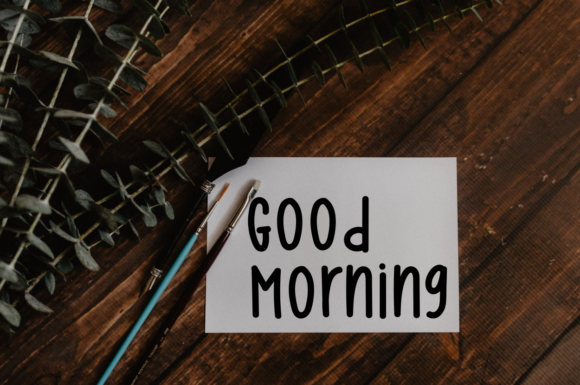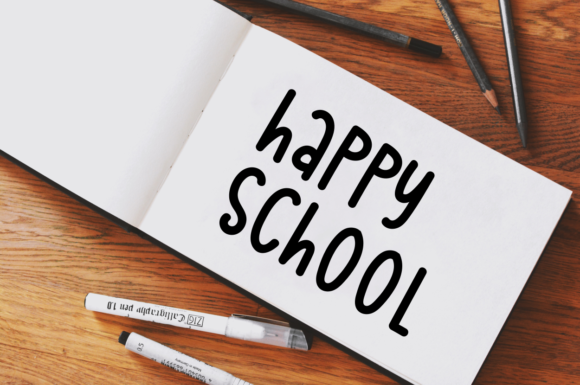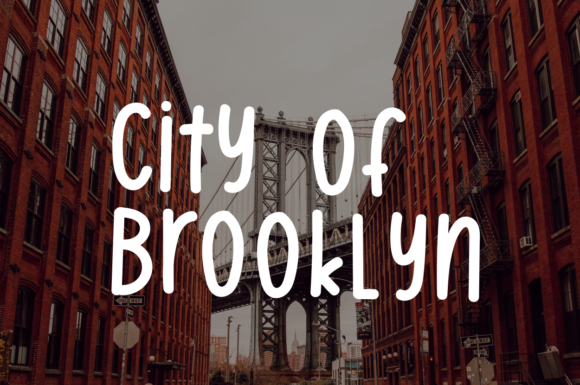
Introduction to Let’s Create Unique Font
Let’s Create Unique feels equally trendy and adaptable.
Add this neat font to each of your informal or casual ideas and notice how it makes them stand out .